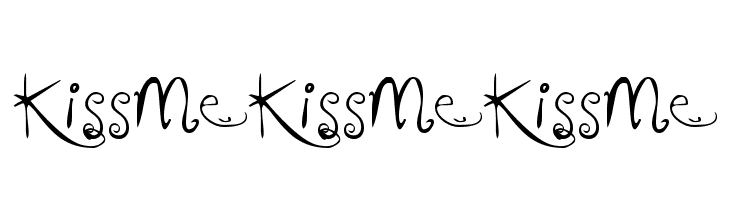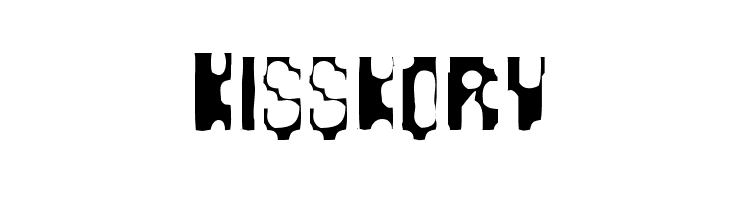
A bold, stencil-style font with a strong, industrial aesthetic.
A whimsical, curly font with decorative swirls and loops.
A whimsical, decorative font with curly, swirly elements and playful character designs.
A playful, romantic cursive script with whimsical details.
A cursive, handwritten-style font with elegant curves and moderate contrast.